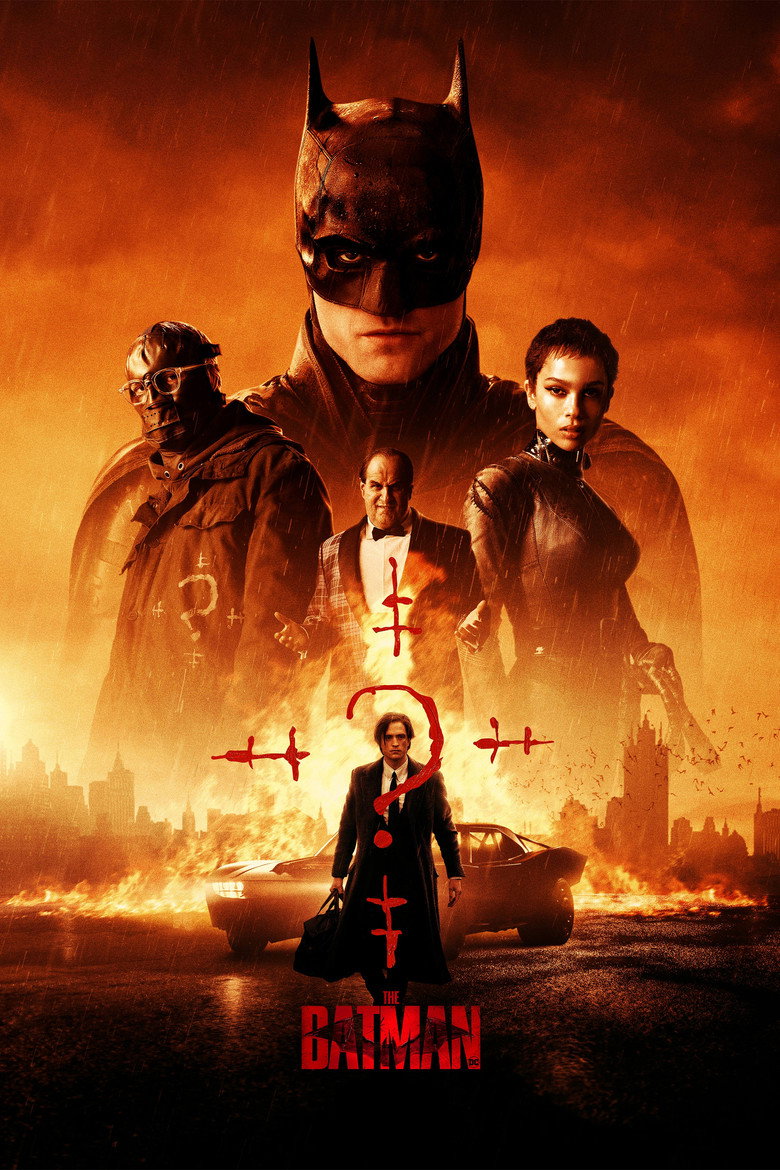
About the The Batman font
The Batman's logo is a stencilled, machine-cut display. Wallpoet recreates that dark, industrial Gotham stencil for freely usable titles.
The original The Batman logo uses custom lettering. This generator recreates the look with Wallpoet — a free, open-license font you can style and download.